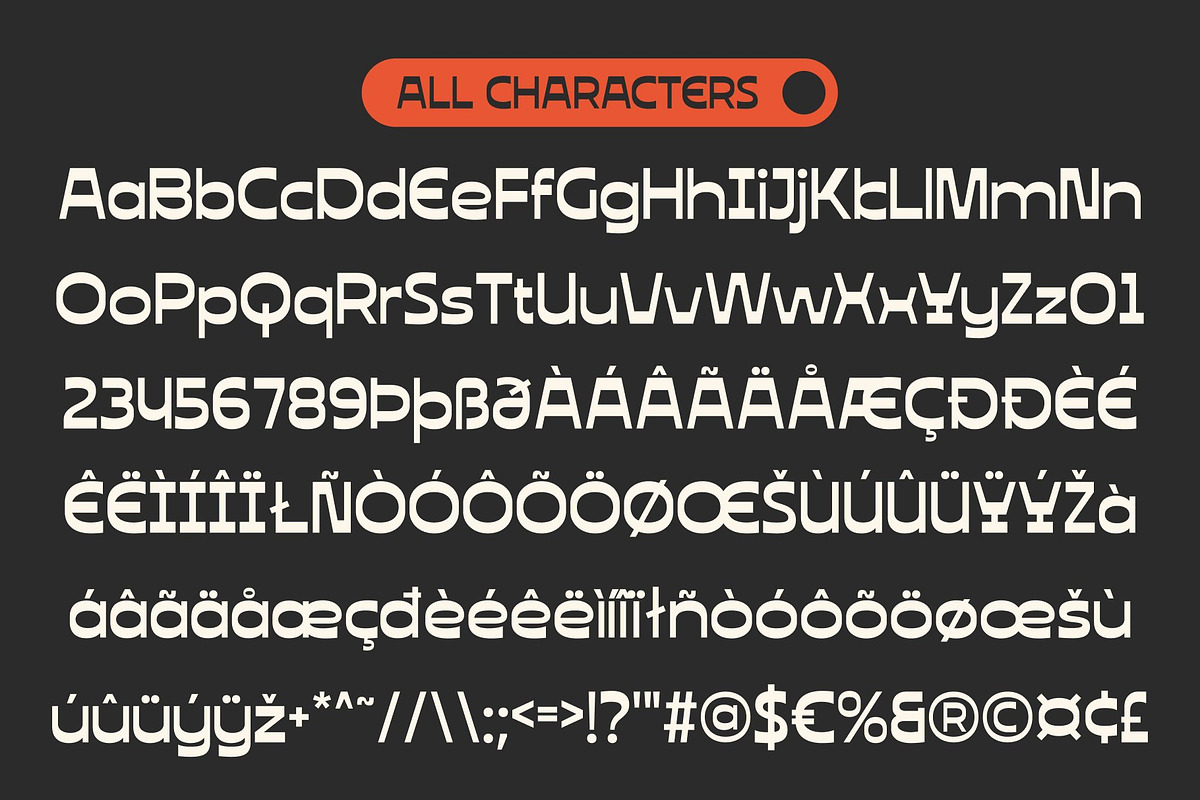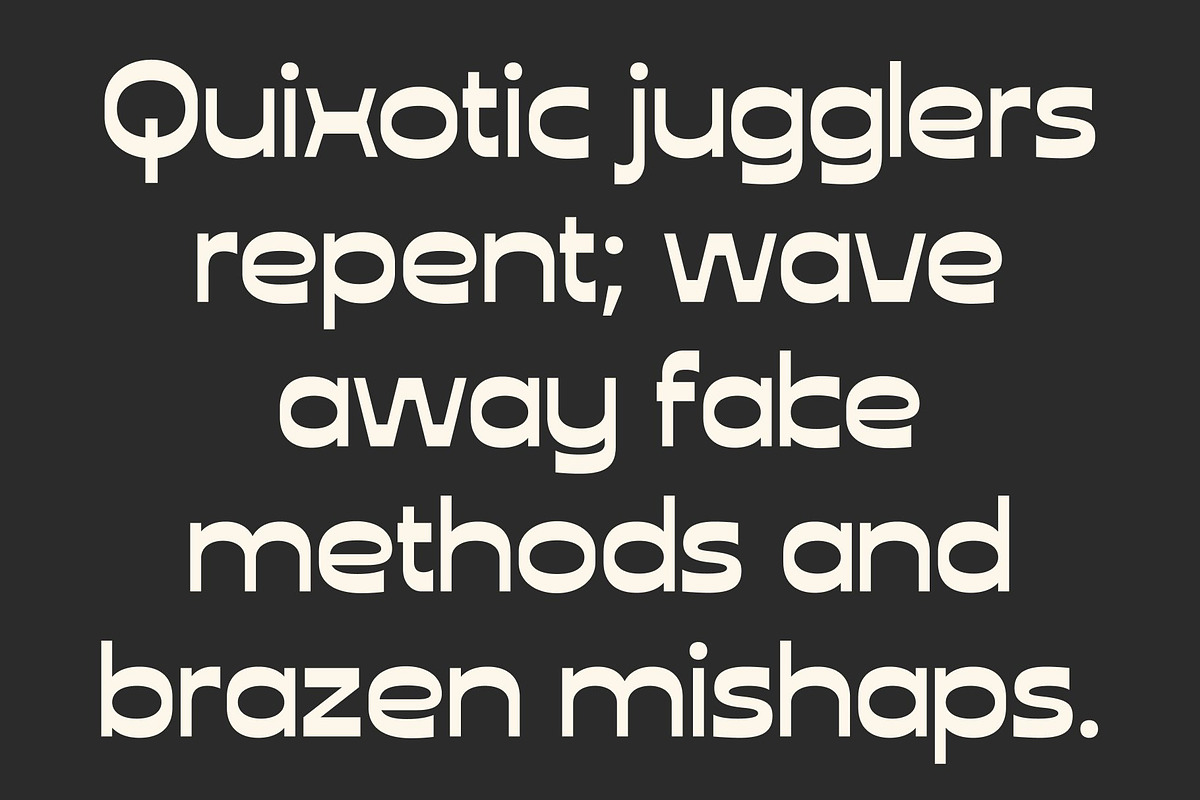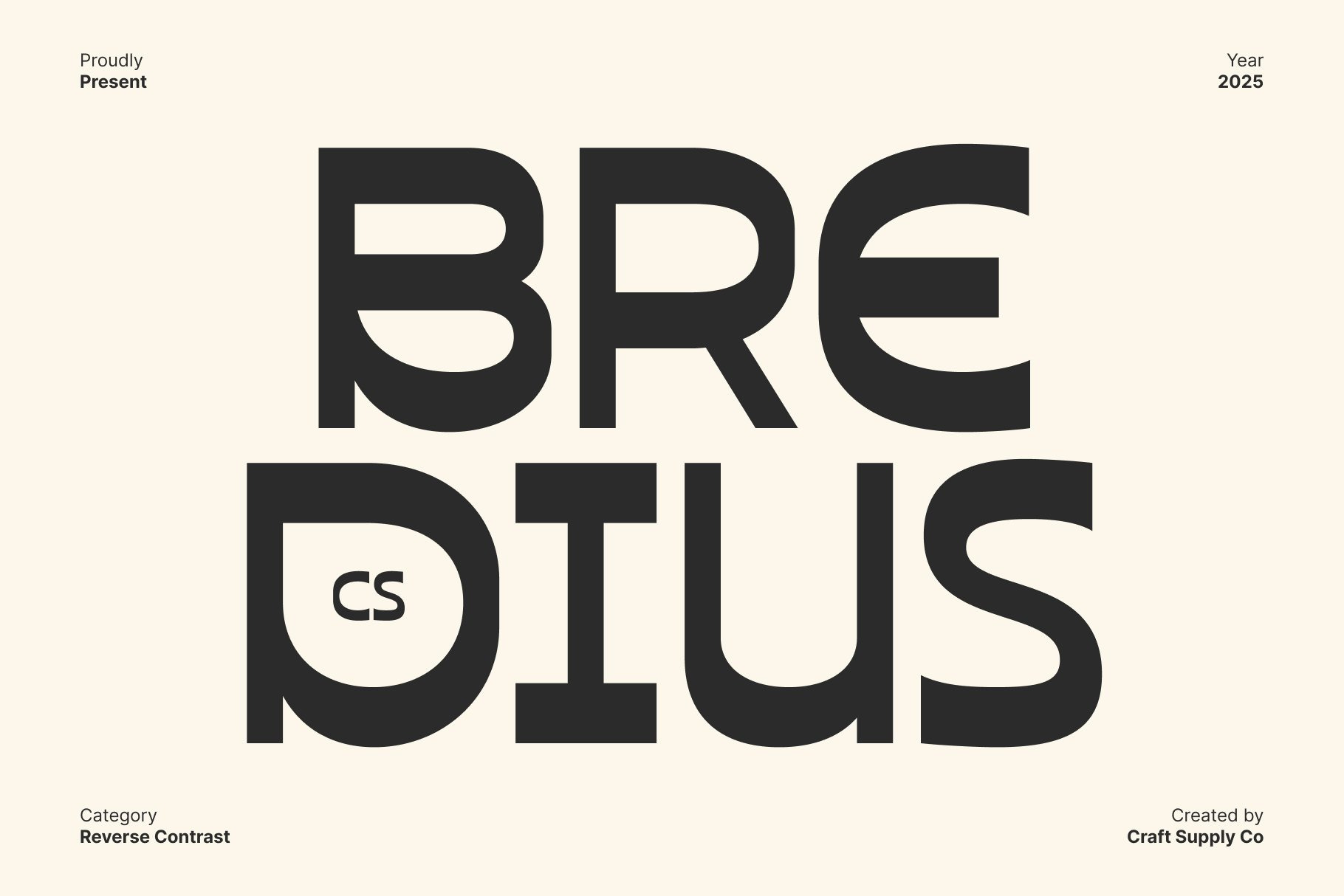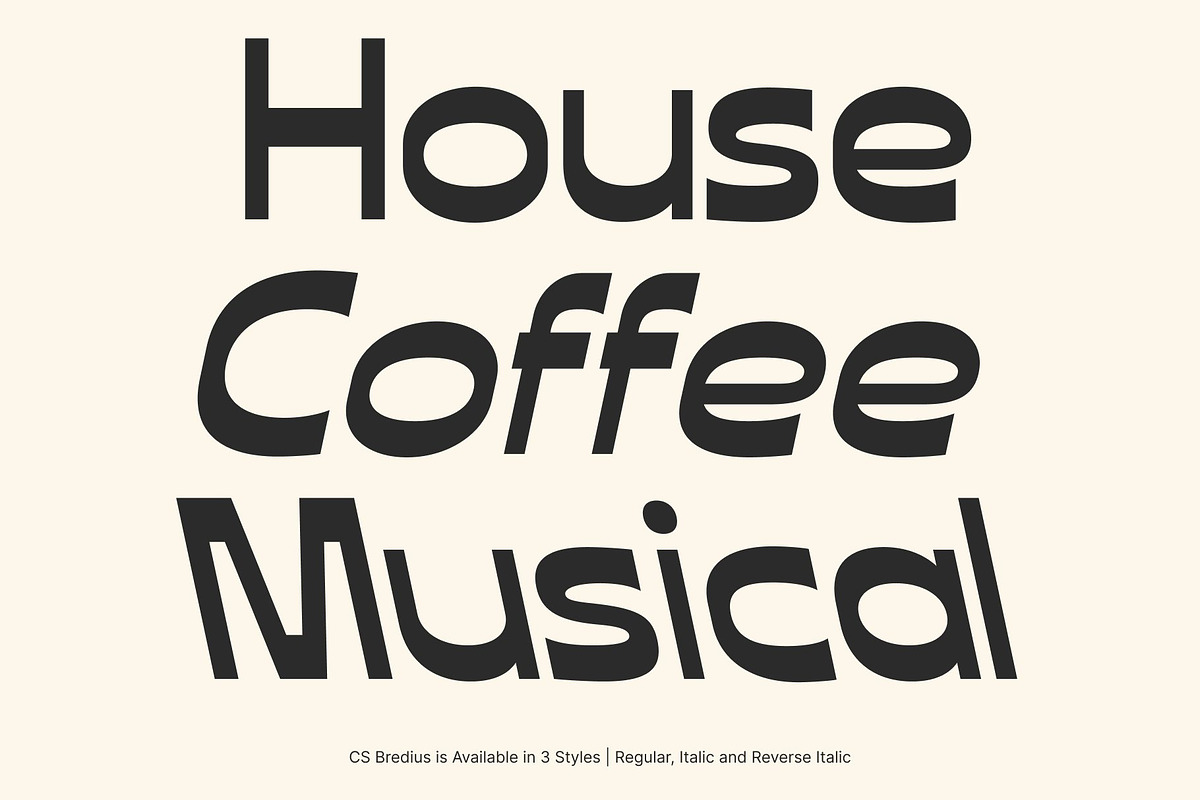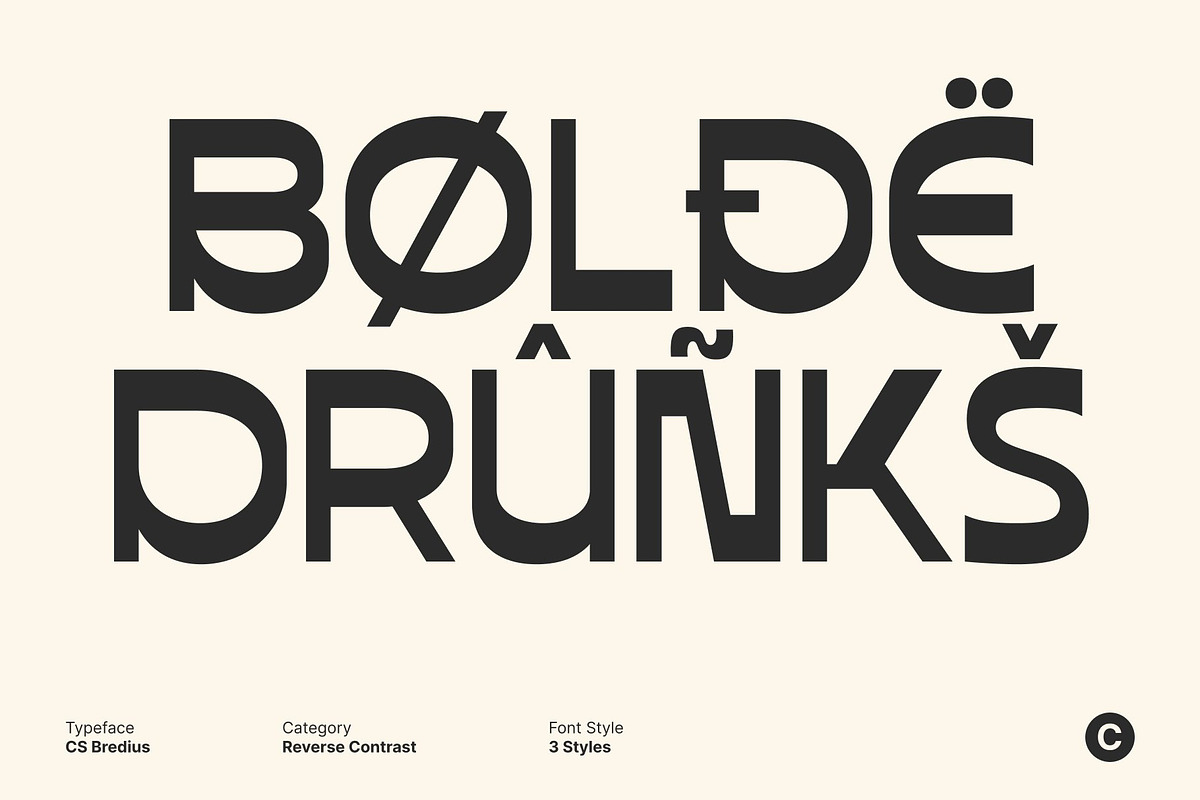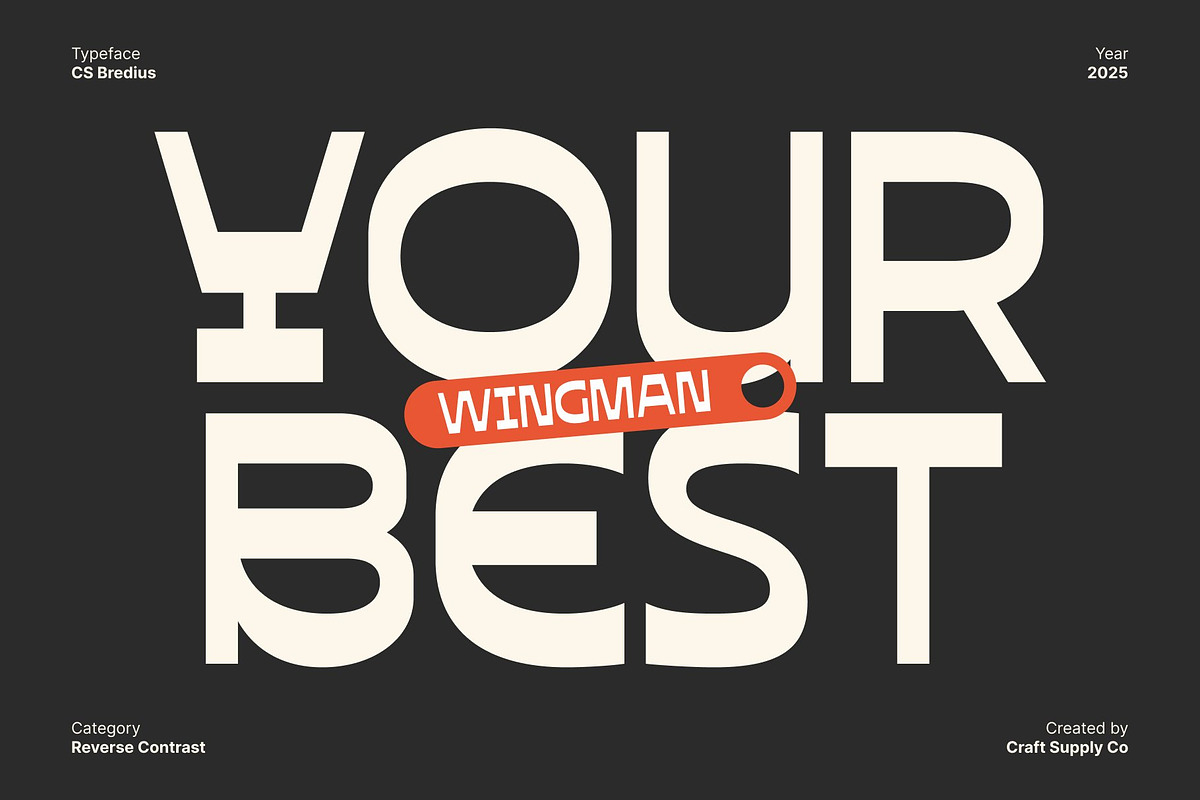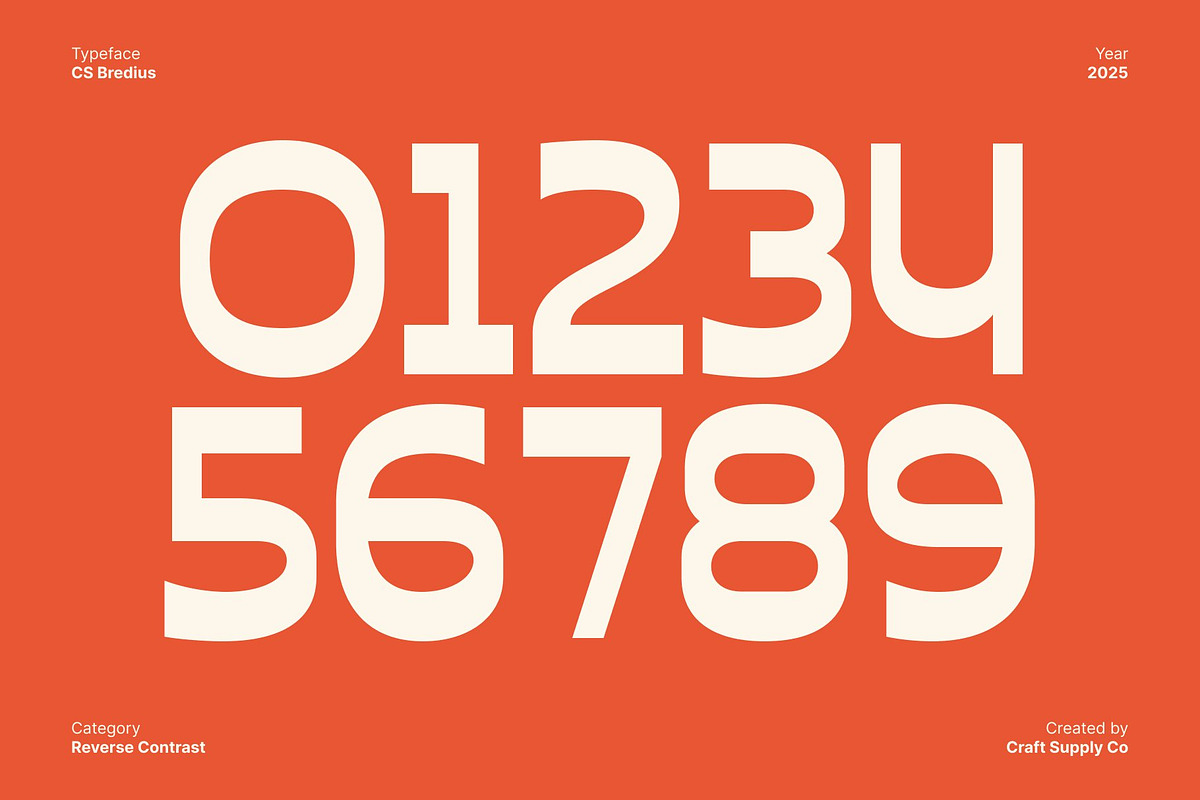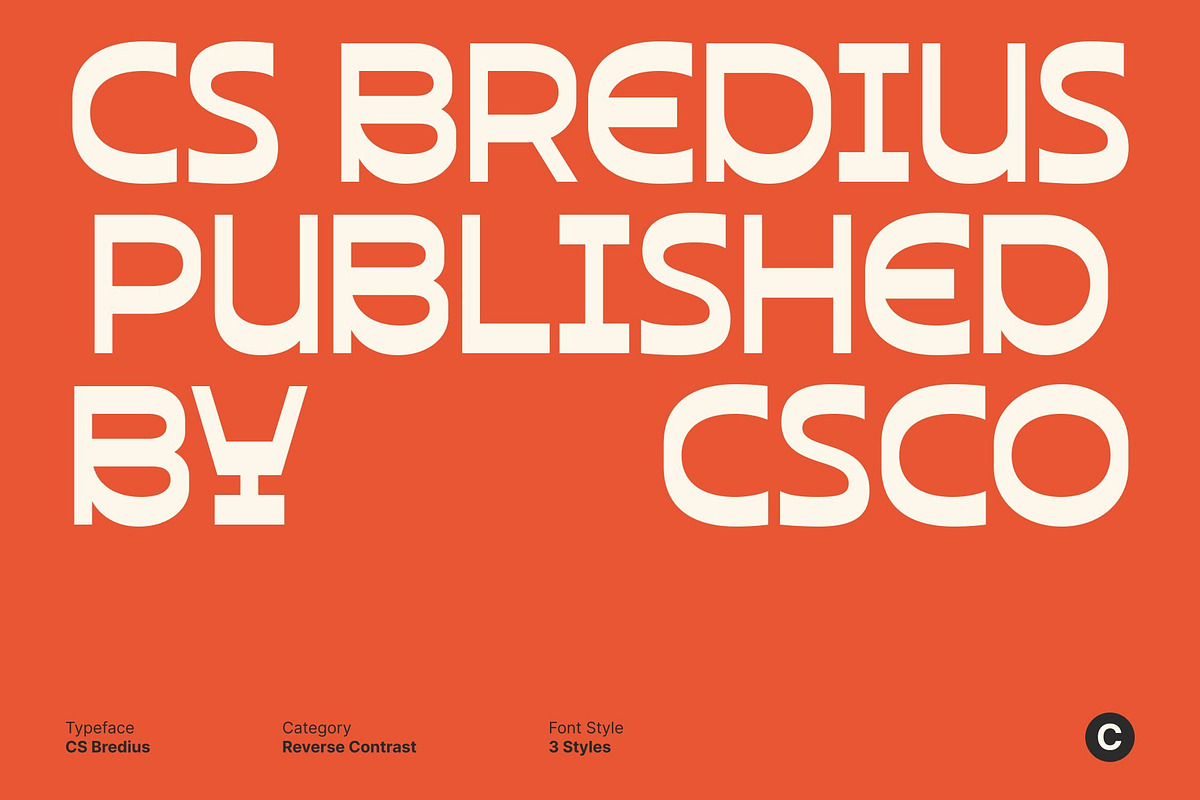
CS Bredius – Quirky Font
CS Bredius – Quirky Personality with Creative Charm
Playful Display Font with Unique Character This is a cheerful and distinctive display font that celebrates individuality through its unconventional shapes and expressive rhythm. Each letterform carries a playful twist, creating a sense of fun and spontaneity that instantly draws attention. Designed to stand out, This font brings a bold, creative energy to any visual composition.
Unusual Letterforms for a Distinctive Look What makes this font special is its quirky letter design each character feels handcrafted and full of personality. The uneven strokes and whimsical proportions give it a lively and organic flow, making it perfect for projects that embrace creativity and originality.
Perfect for Playful and Expressive Branding From posters and logos to editorial layouts, this font shines in contexts where imagination leads the way. Its bold yet friendly aesthetic makes it ideal for modern brands, artistic campaigns, and expressive headlines. Whether for creative studios, event promotions, or lifestyle designs, this font turns text into art.
Vibrant, Fun, and Full of Life This font is more than just a quirky font it’s a celebration of design freedom. Its cheerful forms and engaging rhythm make it a joyful addition to any project that values uniqueness and expression. Use this font to give your designs a voice that’s confident, playful, and impossible to ignore.